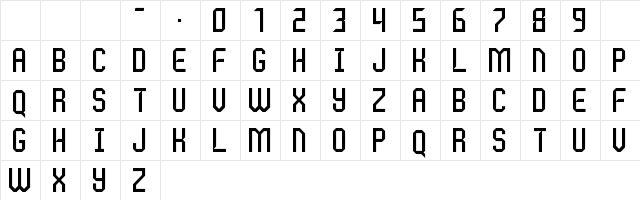
Lancip 2 Regular
| Designer | Subarkah .S |
Design Context for Lancip 2 Typeface
Lancip 2 offers clean, dependable letterforms without strong stylistic allegiance, making it a practical choice for designers who need flexibility.